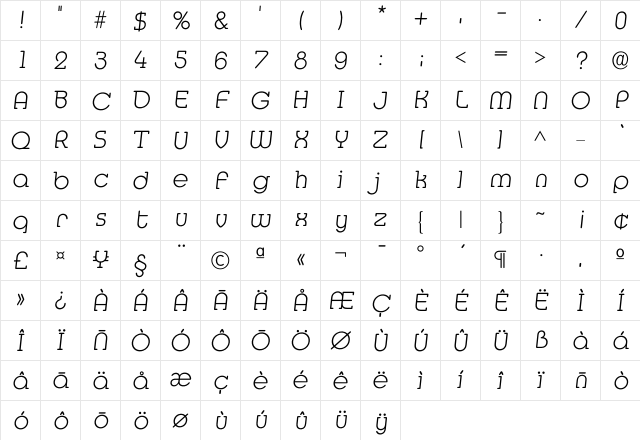
Complete Imedia Xlight glyph index. Displaying only characters natively supported by Imedia Xlight font.
Imedia is a composed and adaptable typeface that performs quietly and consistently across a wide range of design contexts. Its slender proportions lend an understated elegance to any composition.